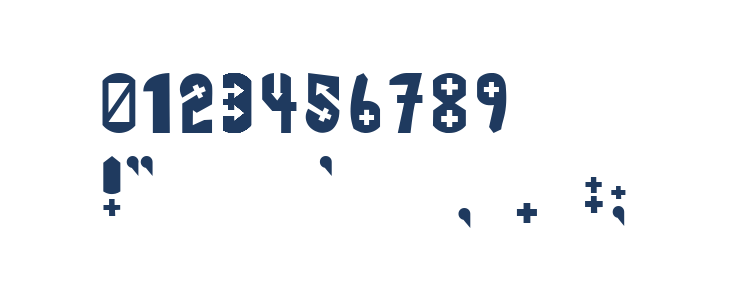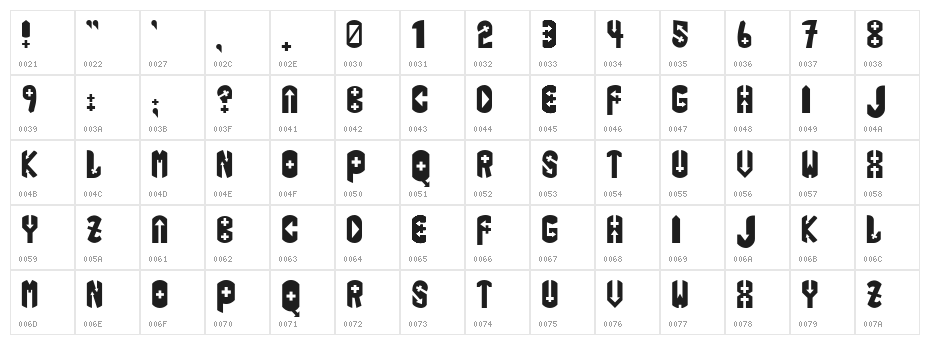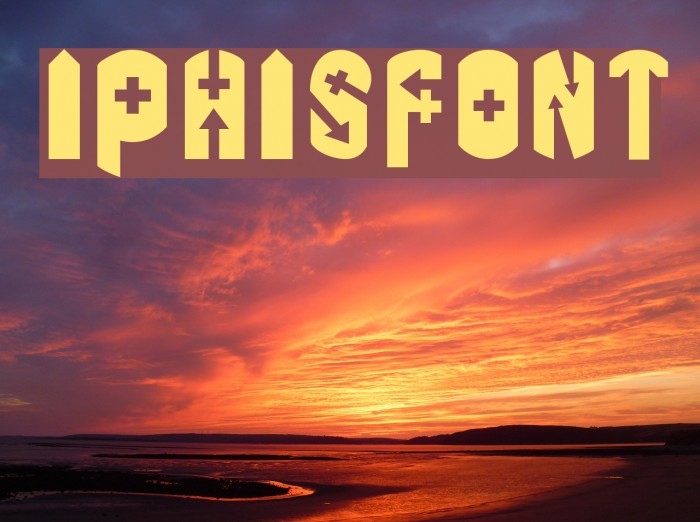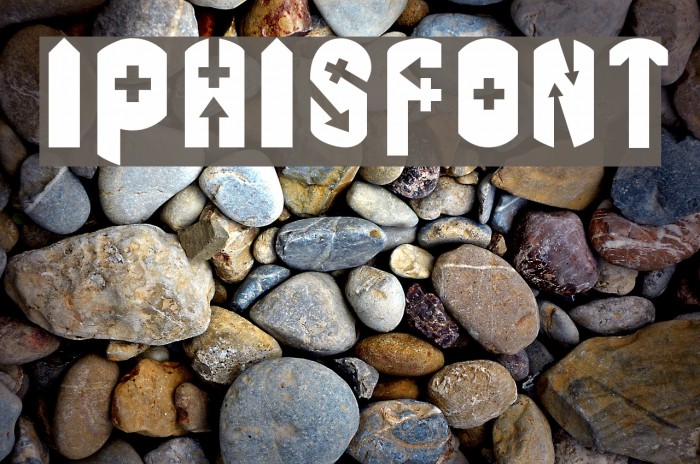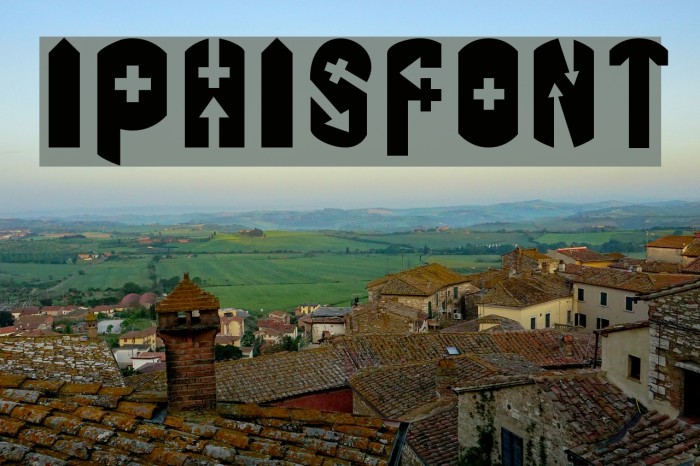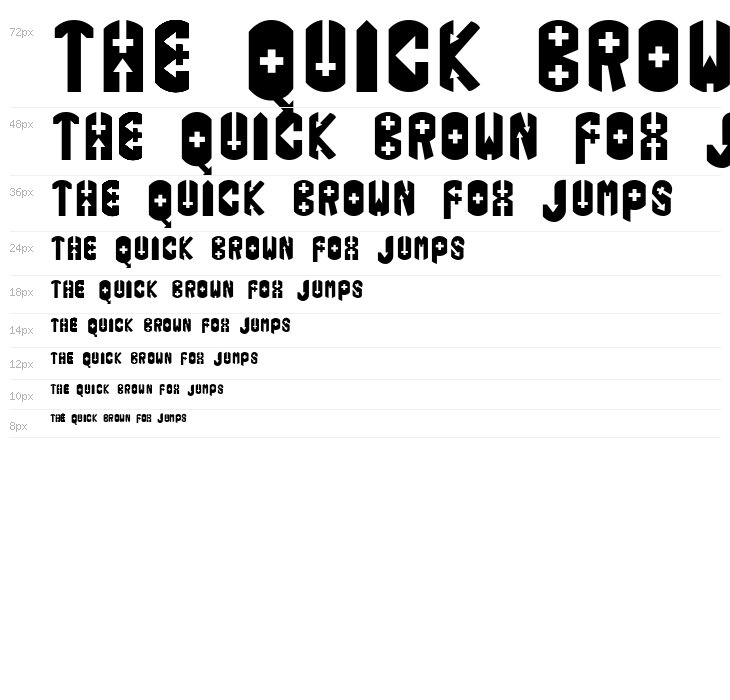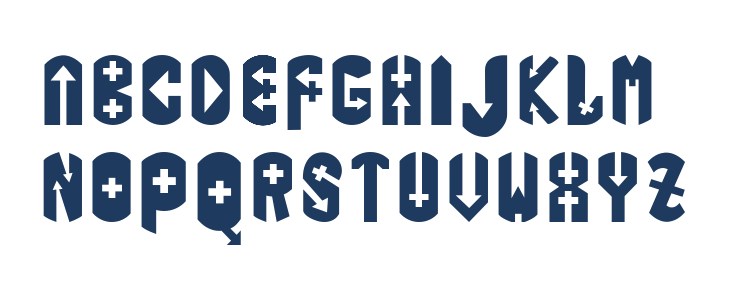
Iphis Font
Iphis Description
This font features a bold and striking design with geometric elements and a strong presence. Each character is crafted with angular lines and unique cut-out shapes, giving it a modern and futuristic appearance. The uppercase and lowercase letters maintain a consistent style, with a focus on symmetry and balance. Numbers and special characters are designed to complement the overall aesthetic, making this font suitable for eye-catching displays. The boldness of the font ensures high visibility, making it ideal for impactful headlines and branding projects.